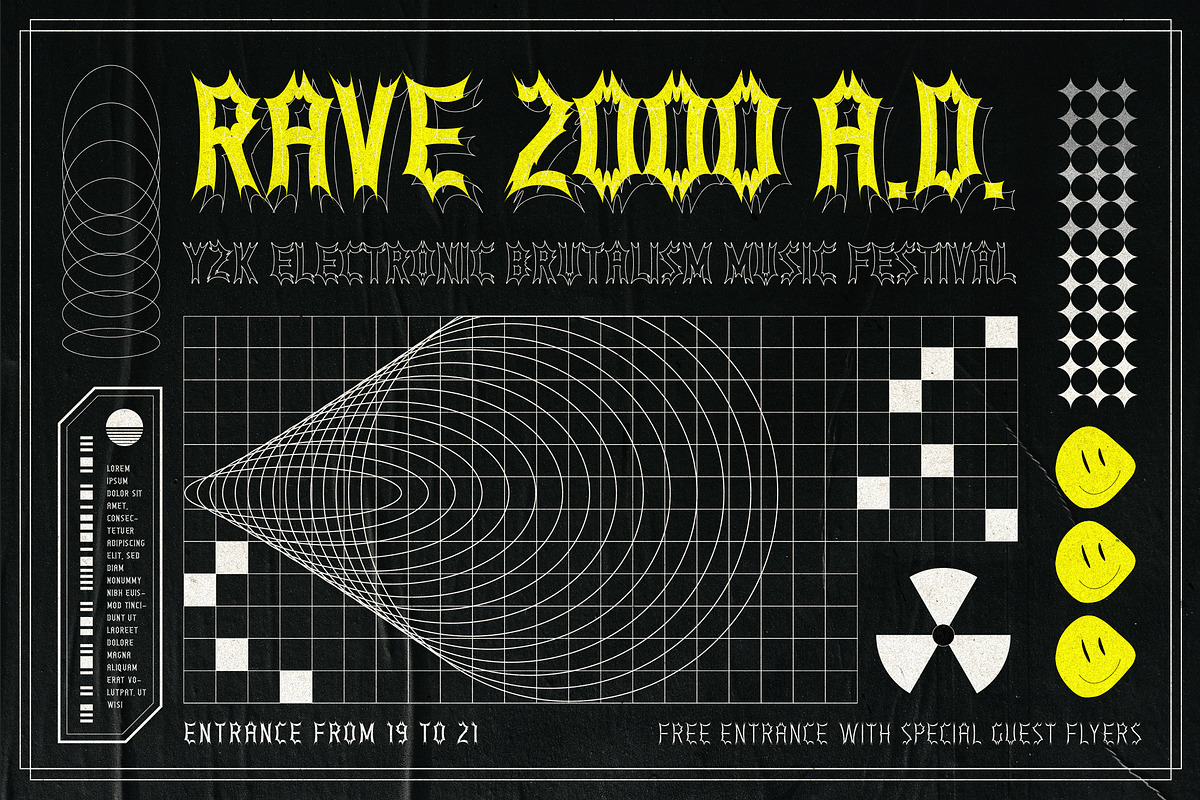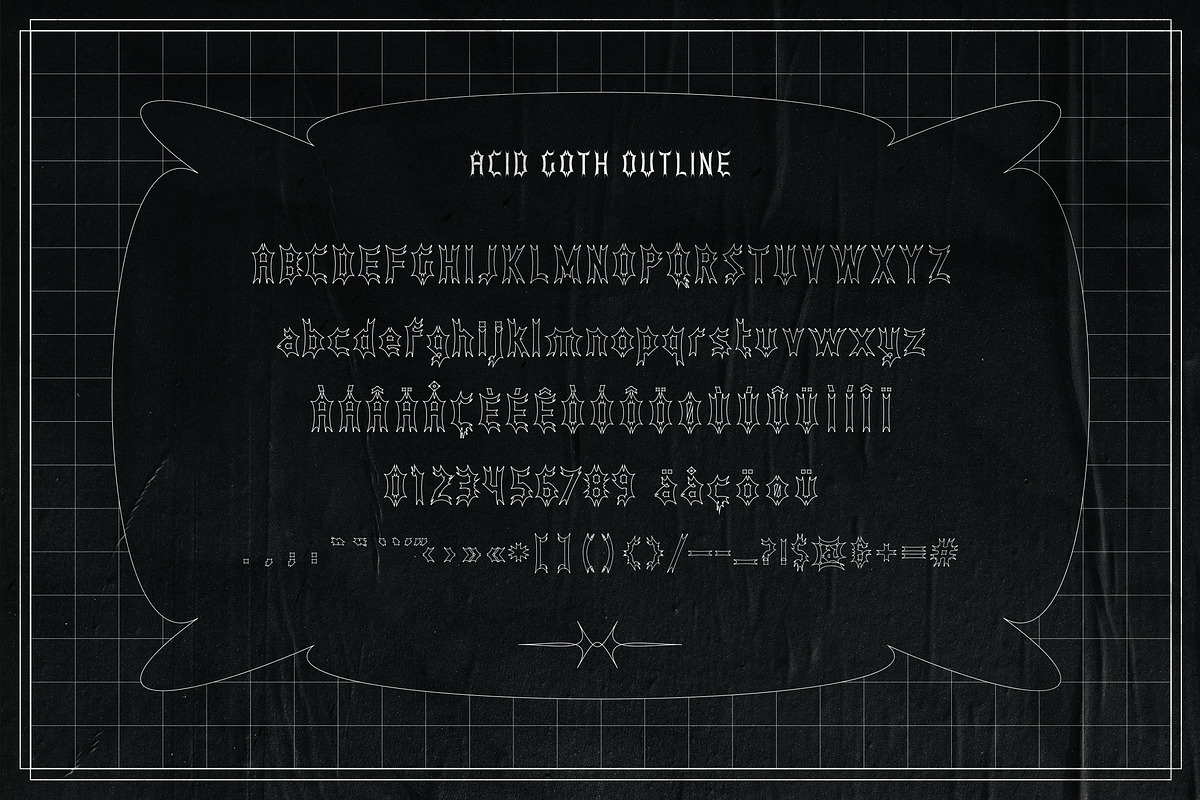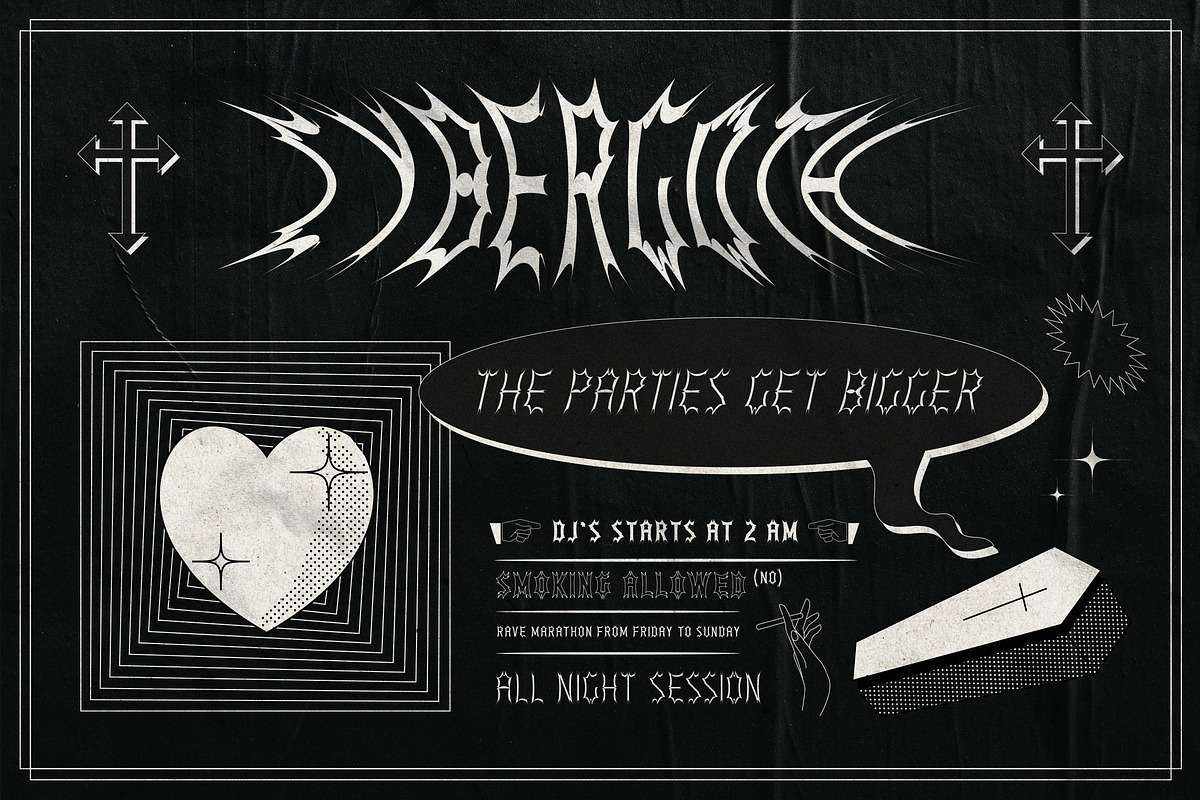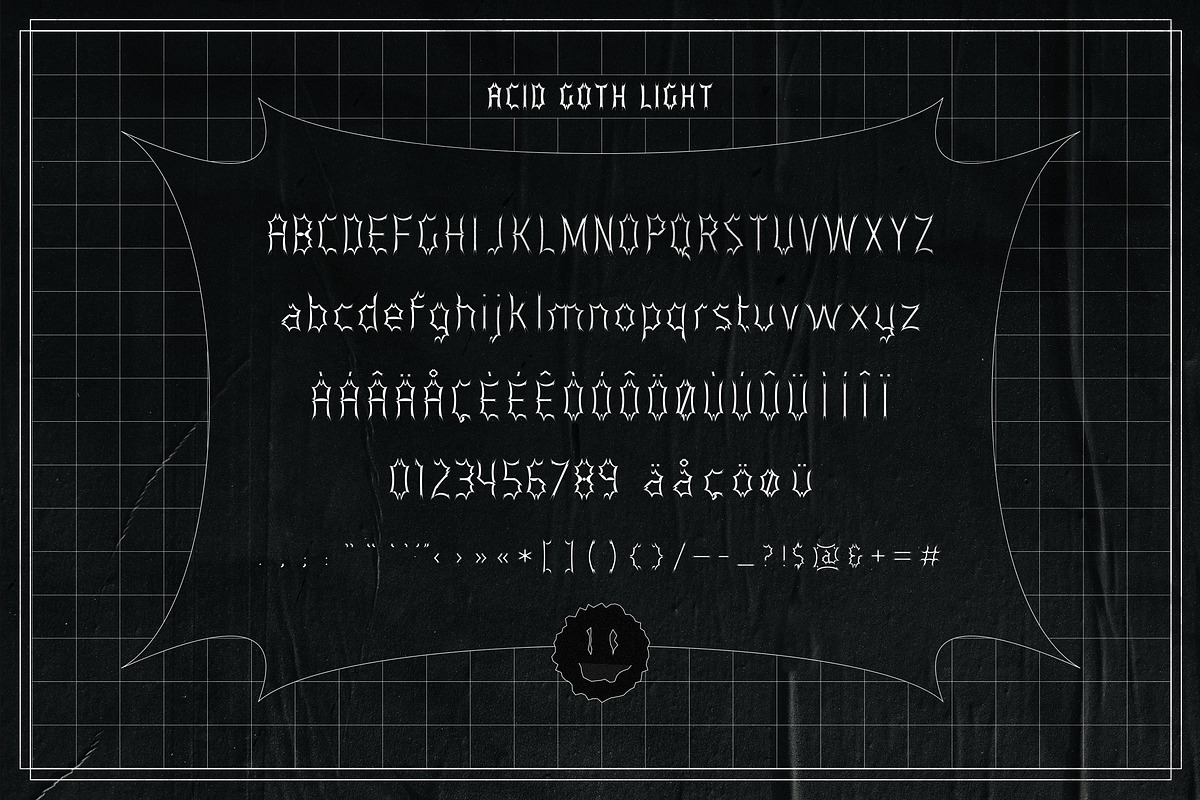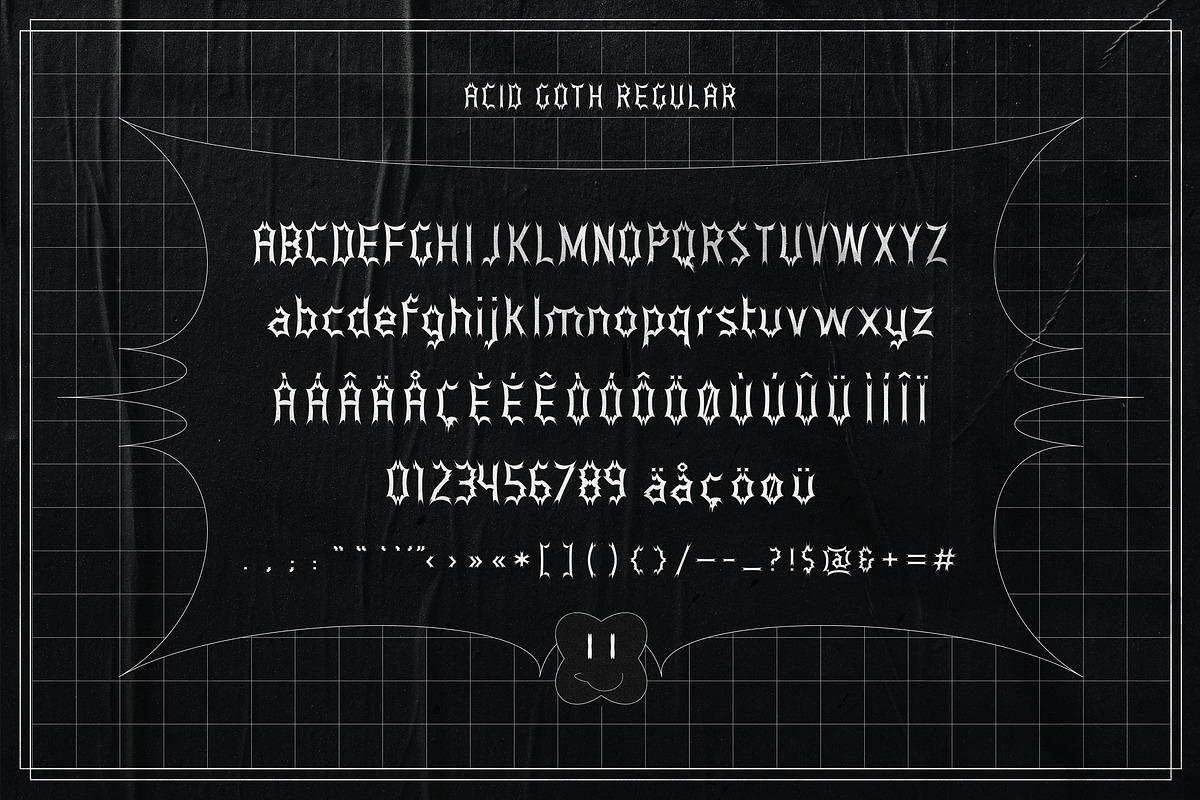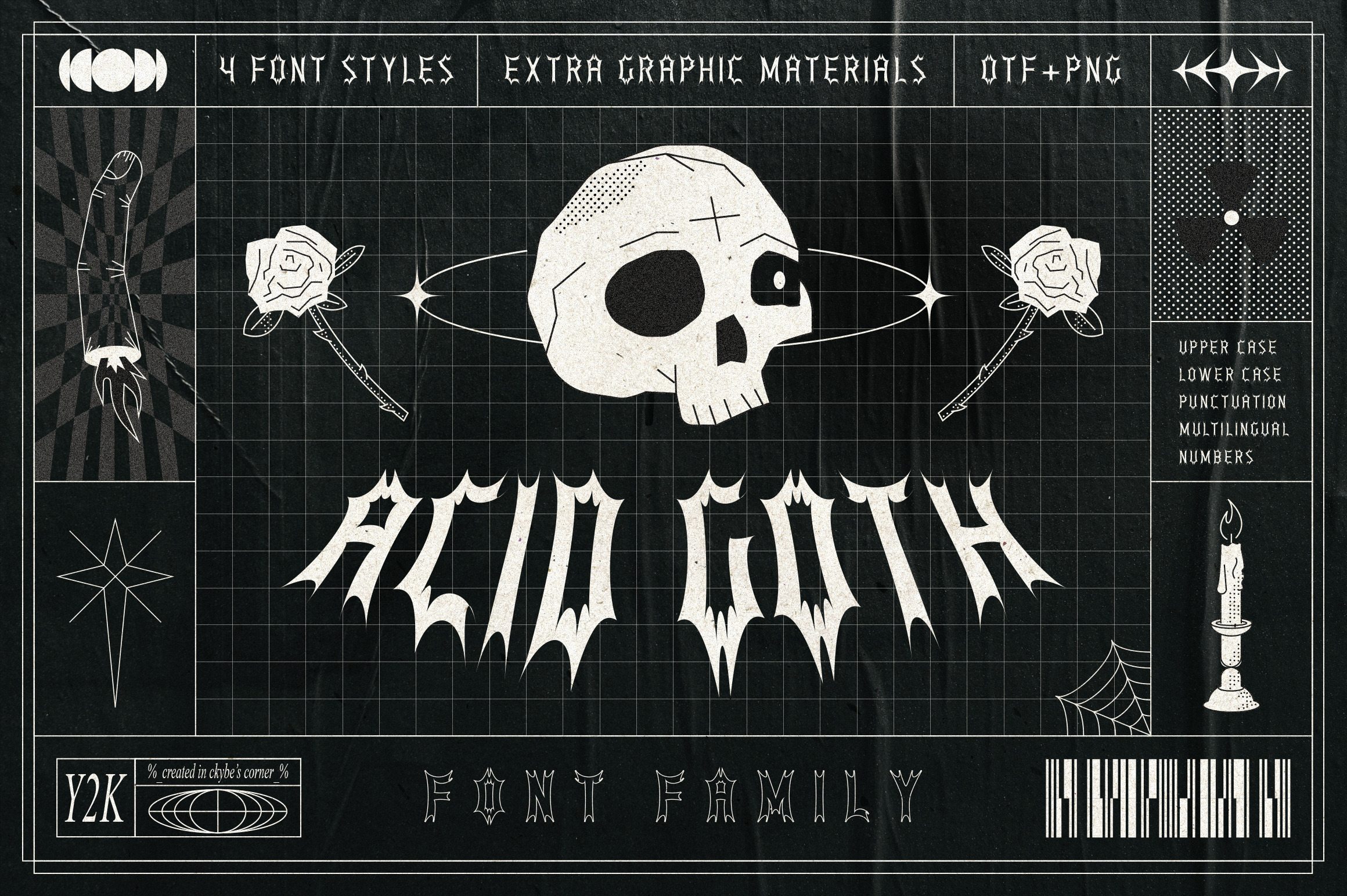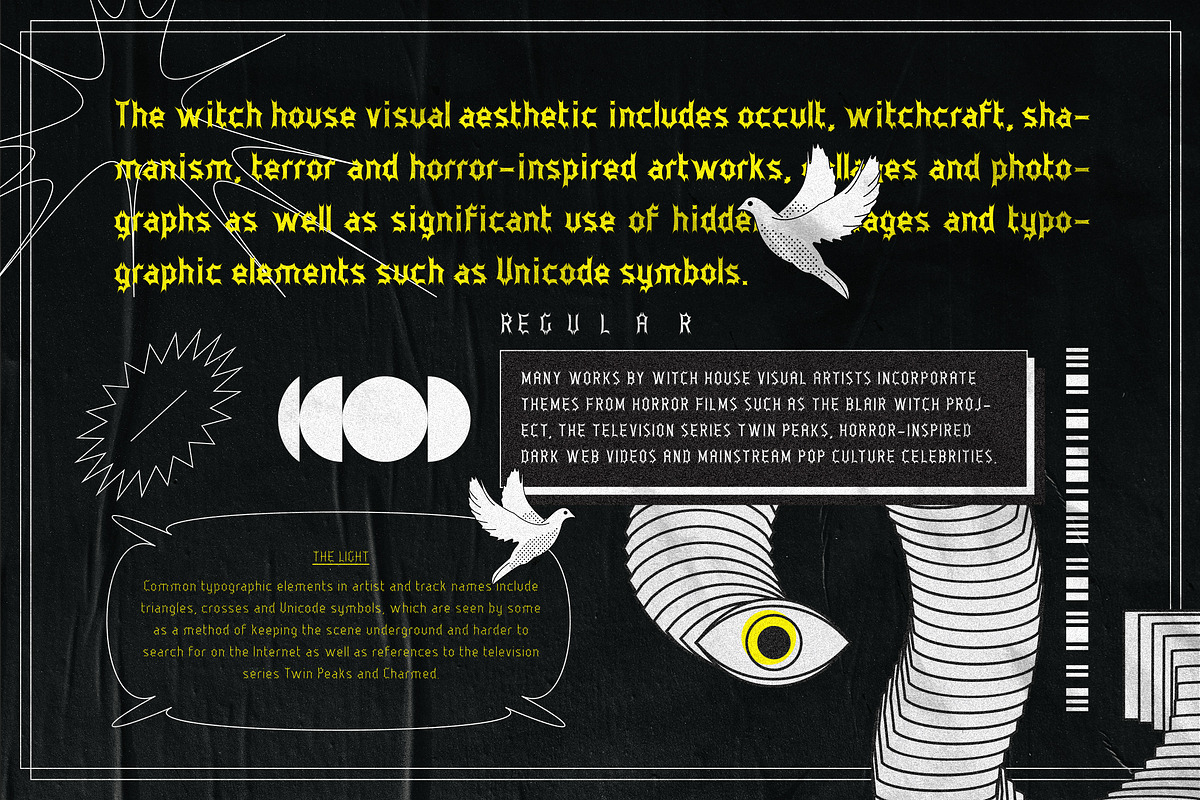
Acid Goth | Font Family
Introducing Acid Goth - Sweet late 90's - early 2000's inspired font with 4 styles, including Regular, Light, Bold and Outline with full set of upper case, lower case, numbers, punctuation, symbols and multilingual letters. Acid Goth - Heavy retro wave grotesk and trendy Y2K grunge style with the spirit of chaos and freedom of the 2000's era. Rave parties in smoky locations, flyers with anti-design, shoes on huge platform as an inspire for this font and your next crazy projects.